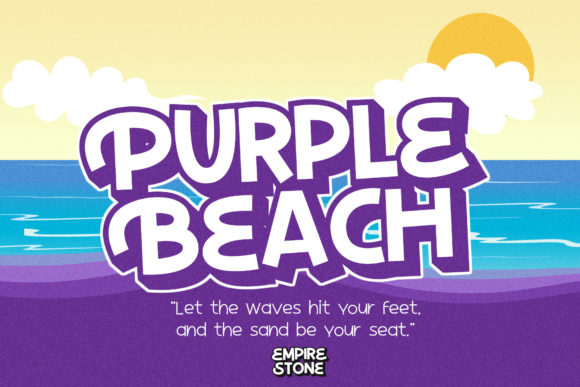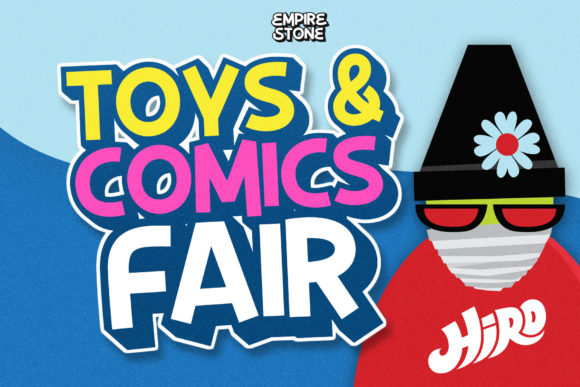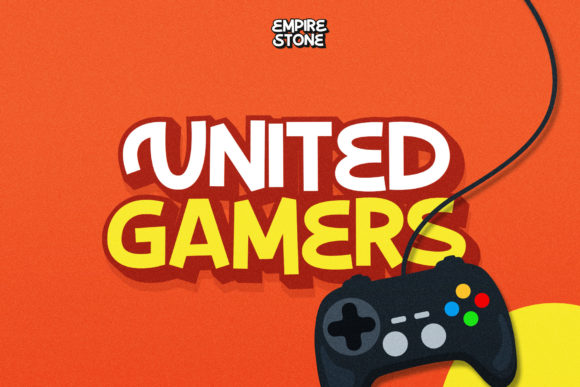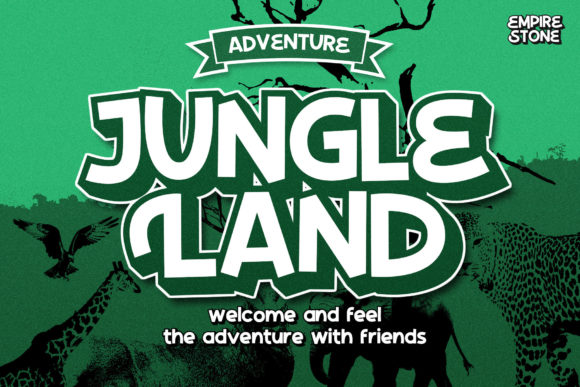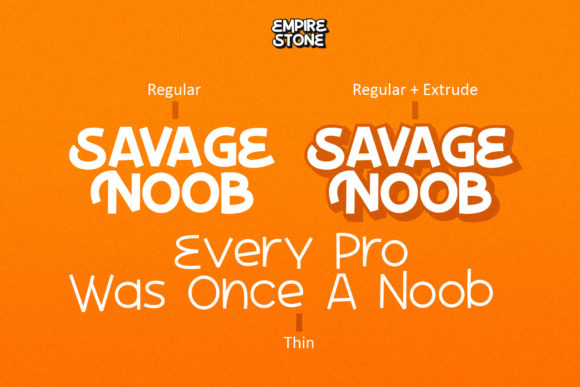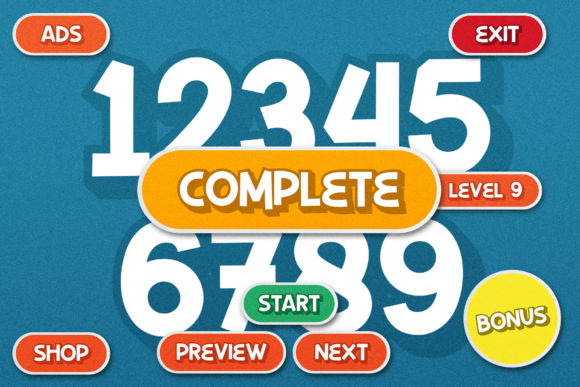
Introducing Empire Stone Font: The Ultimate Playful Display Font for Designers and Crafters
In the world of typography, fonts play a crucial role in conveying the tone and personality of a brand or design. For designers and crafters looking for a font that embodies fun, attractiveness, and a game-like appearance, Empire Stone Font is an excellent choice. Inspired by gamers around the world, this playful display font is perfect for a wide range of applications, from games and apps to titles, posters, comics, packaging, books, and logotypes.
The Inspiration Behind Empire Stone Font
Empire Stone Font was born out of a passion for gaming and a desire to create a font that captures the essence of the gaming culture. The font’s design is influenced by the vibrant and dynamic world of gaming, with its bold lines, playful curves, and energetic feel. The result is a font that is not only visually appealing but also highly versatile and functional.
Key Features of Empire Stone Font
So, what makes Empire Stone Font stand out from other display fonts? Here are some of its key features:
- Playful and Fun: Empire Stone Font is designed to be playful and fun, making it perfect for designs that require a lighthearted and youthful touch.
- Game-Like Appearance: The font’s game-like appearance is inspired by the world of gaming, making it ideal for games, apps, and other digital products.
- Attractive and Eye-Catching: With its bold lines and playful curves, Empire Stone Font is sure to grab attention and make your designs stand out.
- Highly Versatile: Empire Stone Font can be used in a wide range of applications, from titles and posters to comics, packaging, and books.
Use Cases for Empire Stone Font
Empire Stone Font is a highly versatile font that can be used in various design projects. Here are some use cases where this font excels:
- Games and Apps: Empire Stone Font is perfect for game titles, app names, and other digital products that require a fun and playful touch.
- Posters and Titles: The font’s bold and eye-catching design makes it ideal for posters, titles, and other large-format designs.
- Comics and Graphic Novels: Empire Stone Font is a great choice for comic book titles, character names, and other graphic novel designs.
- Packaging and Branding: The font’s playful and attractive design makes it suitable for packaging and branding projects that require a fun and youthful touch.
- Books and Magazines: Empire Stone Font can be used in book titles, chapter headings, and other design elements that require a bold and eye-catching font.
- Logotypes and Wordmarks: The font’s unique design makes it perfect for logotypes and wordmarks that require a memorable and distinctive look.
Why Choose Empire Stone Font?
With so many fonts available, why choose Empire Stone Font? Here are some reasons why designers and crafters love this font:
- Unique Design: Empire Stone Font has a unique design that sets it apart from other display fonts.
- High-Quality: The font is designed with high-quality and precision, ensuring that it looks great in any design project.
- Easy to Read: Despite its playful design, Empire Stone Font is easy to read and understand, making it perfect for body text and other design elements.
- Customizable: The font is highly customizable, allowing designers to adjust its size, color, and style to fit their design needs.
| Author | HIRO.std |
In conclusion, Empire Stone Font is a playful display font that embodies fun, attractiveness, and a game-like appearance. Inspired by gamers around the world, this font is perfect for designers and crafters looking for a unique and versatile font for their design projects. With its bold lines, playful curves, and energetic feel, Empire Stone Font is sure to make your designs stand out and grab attention.